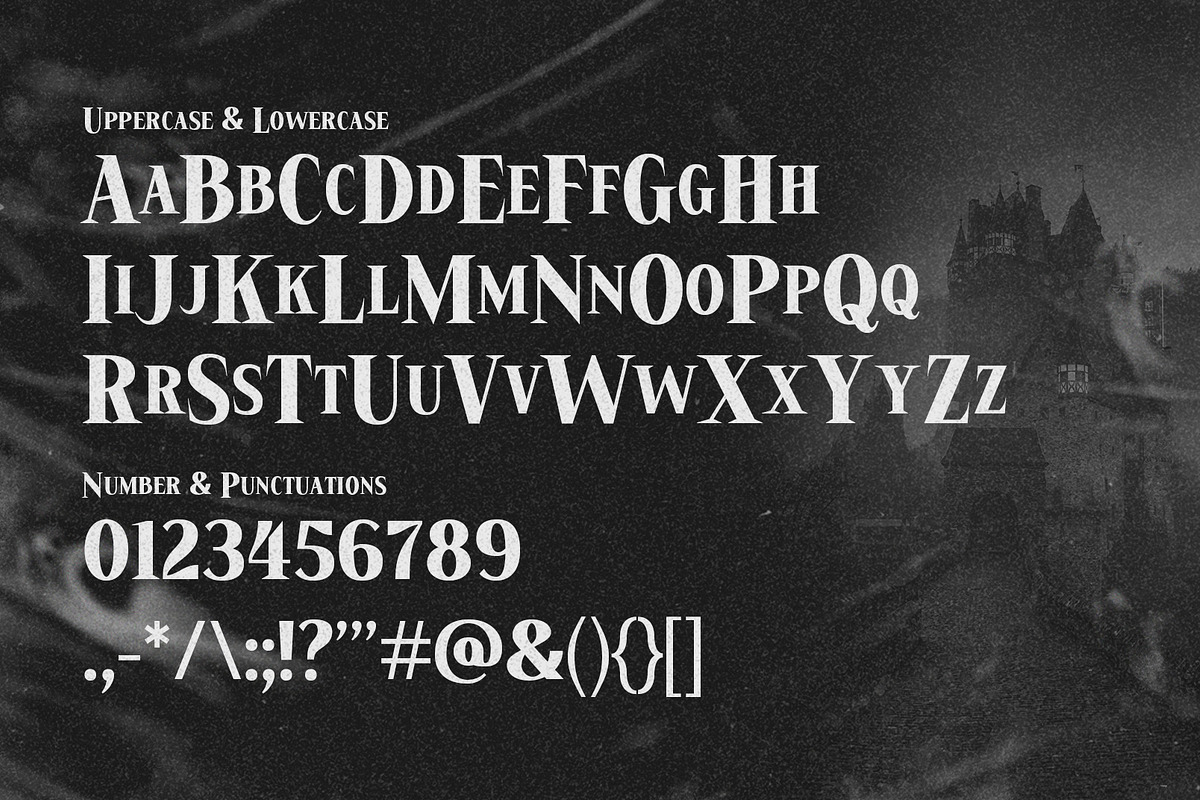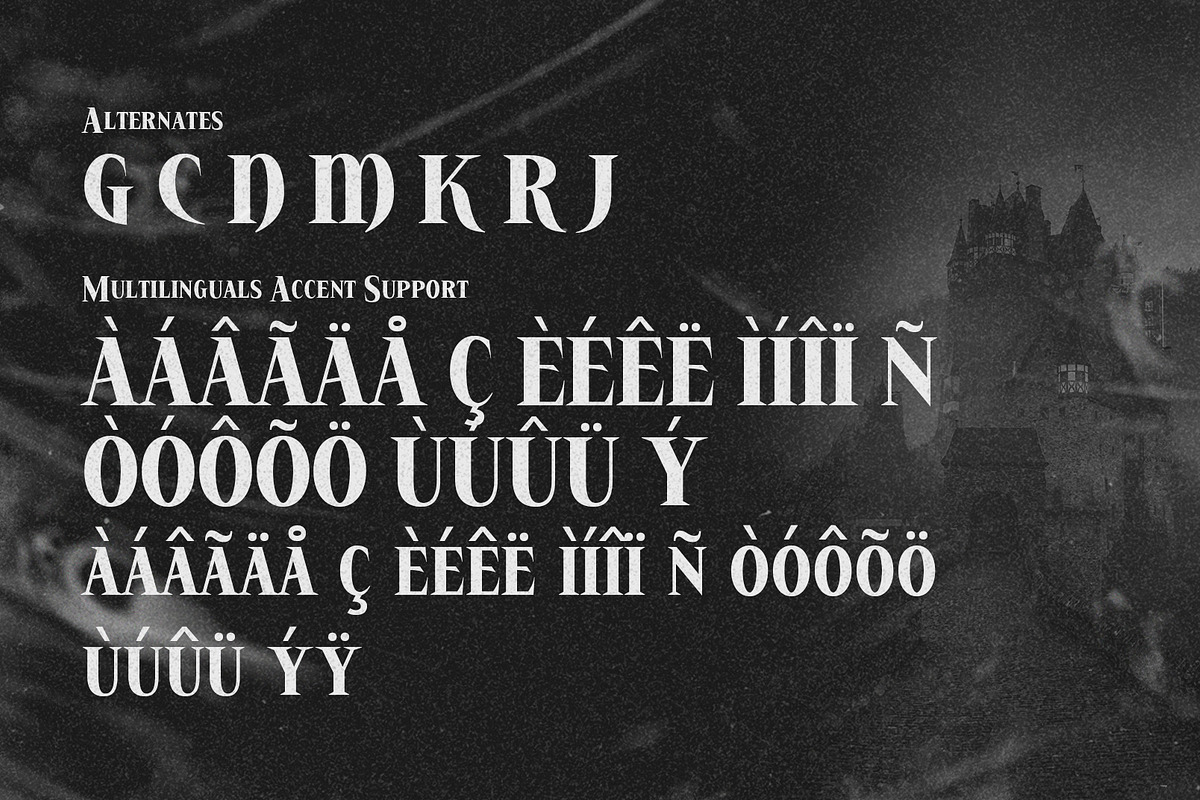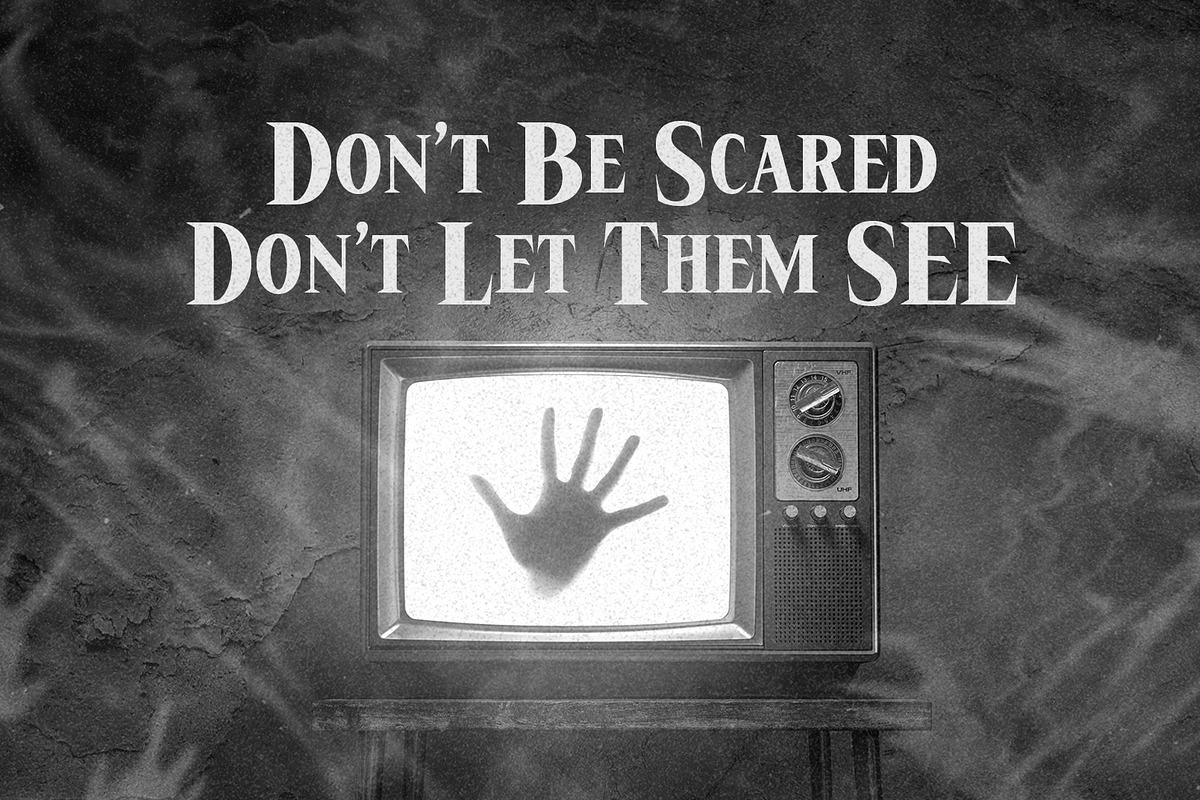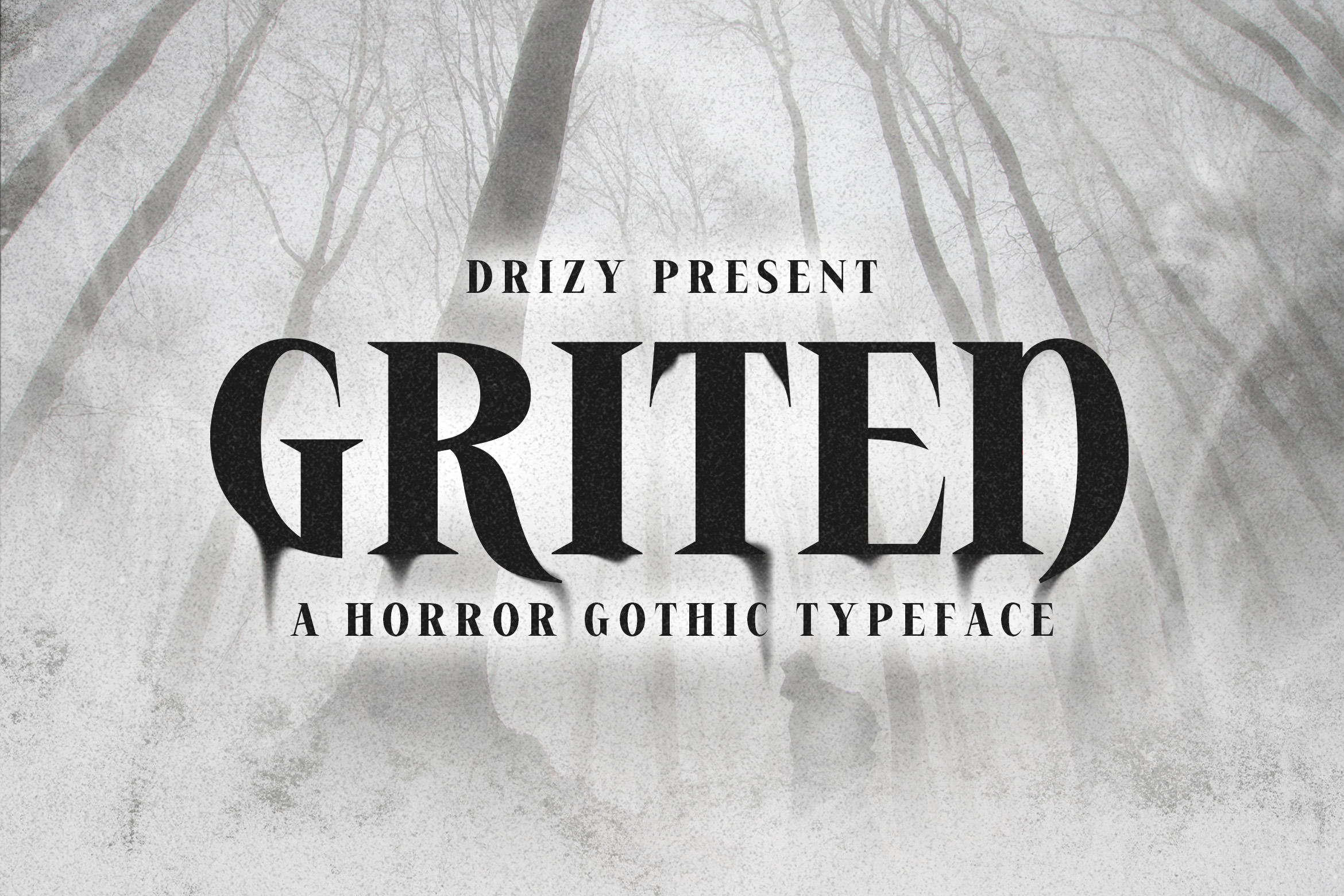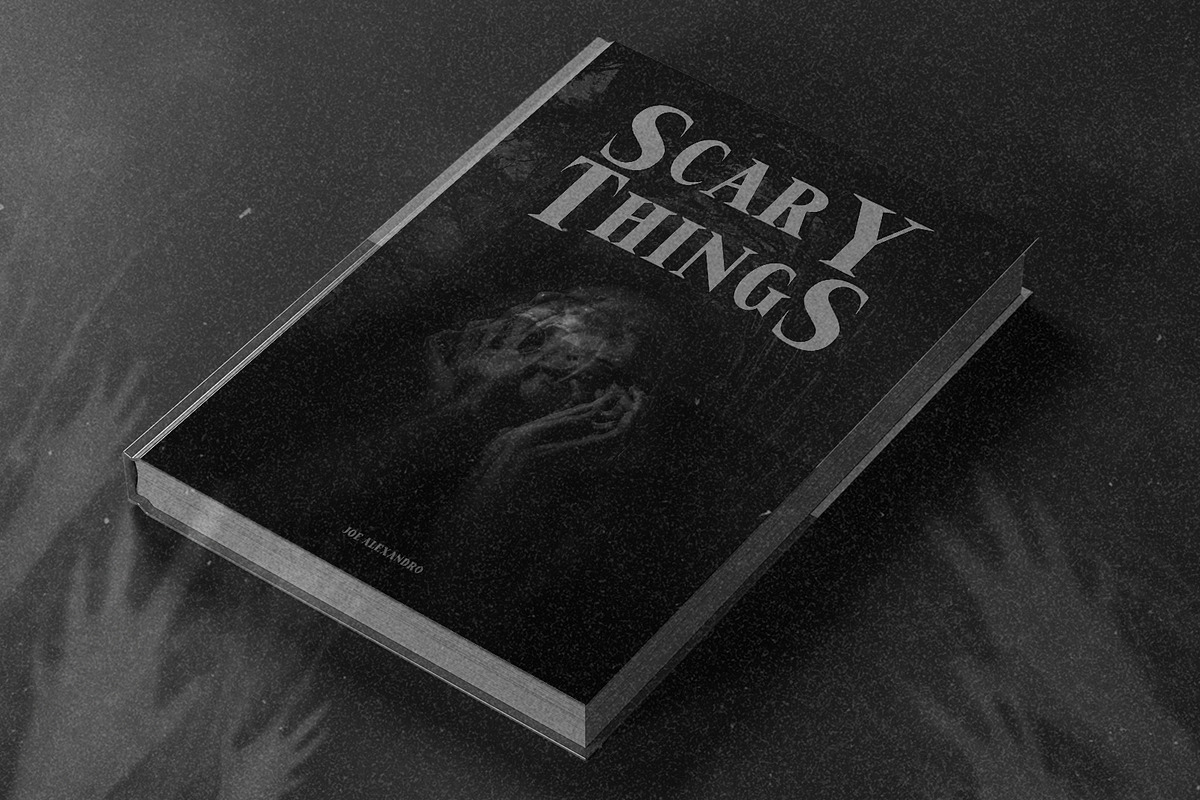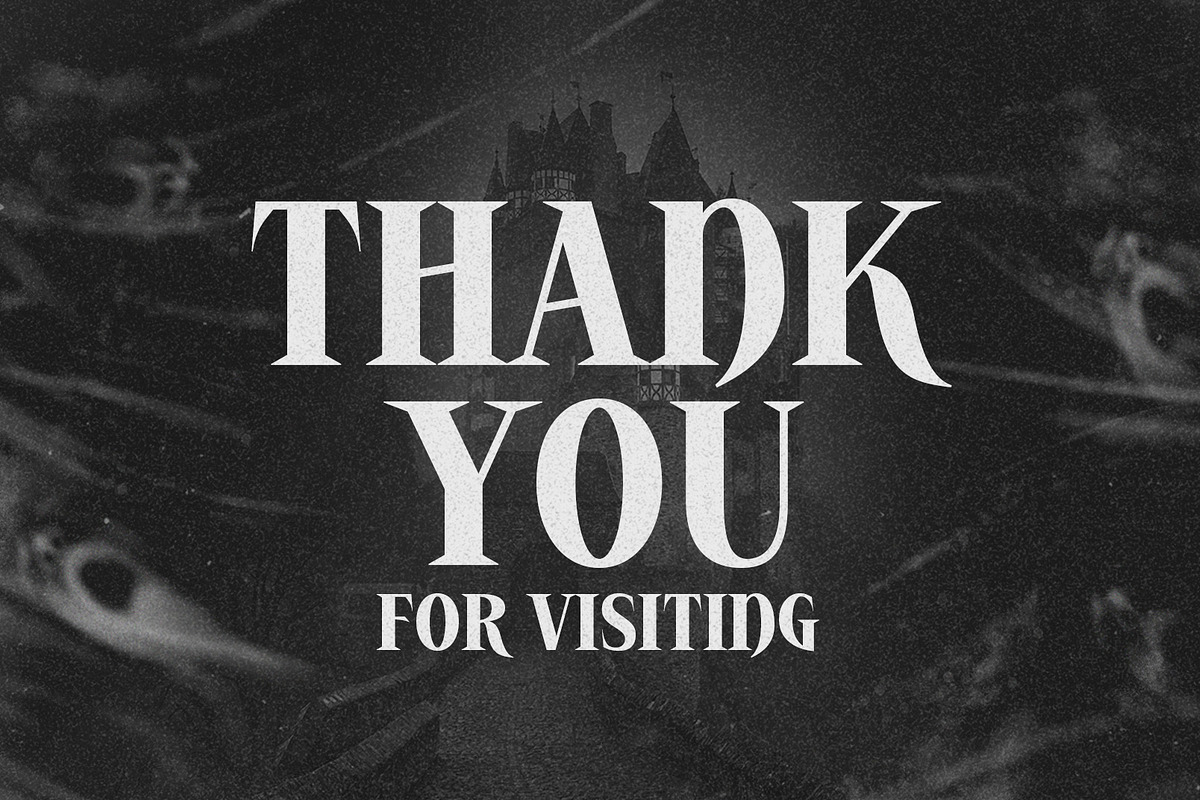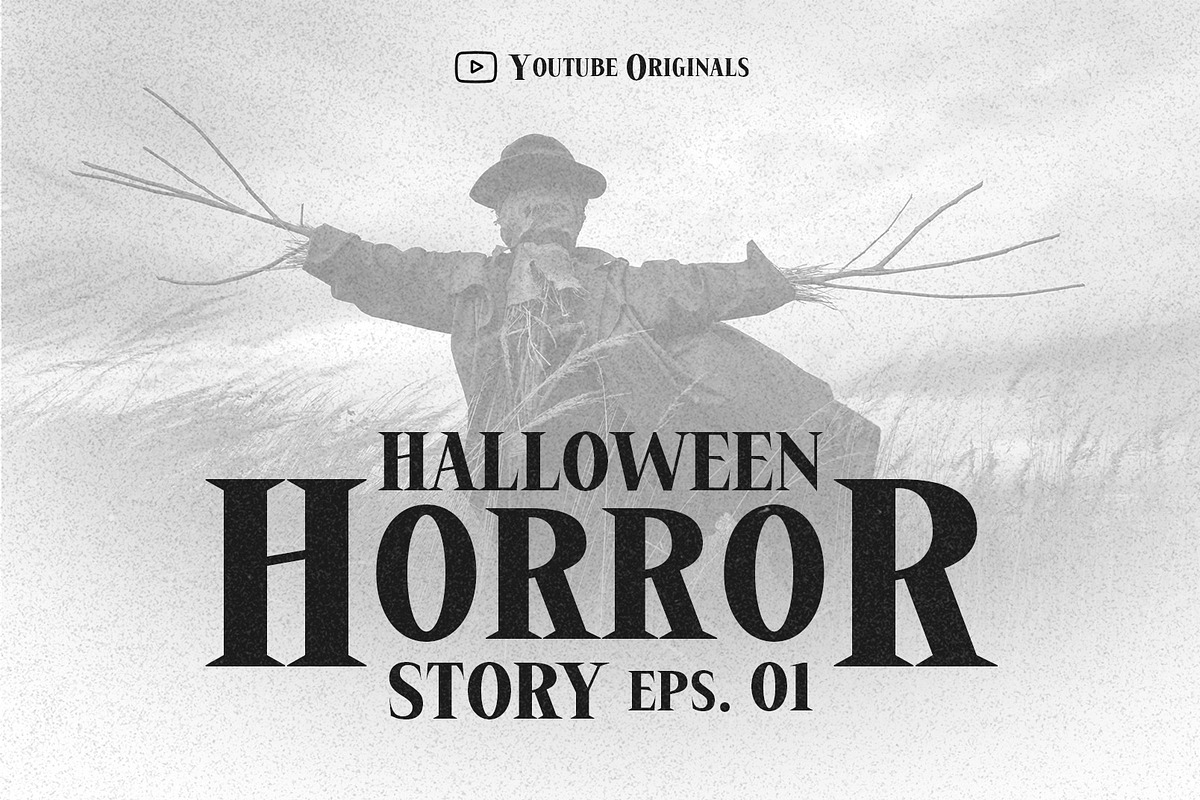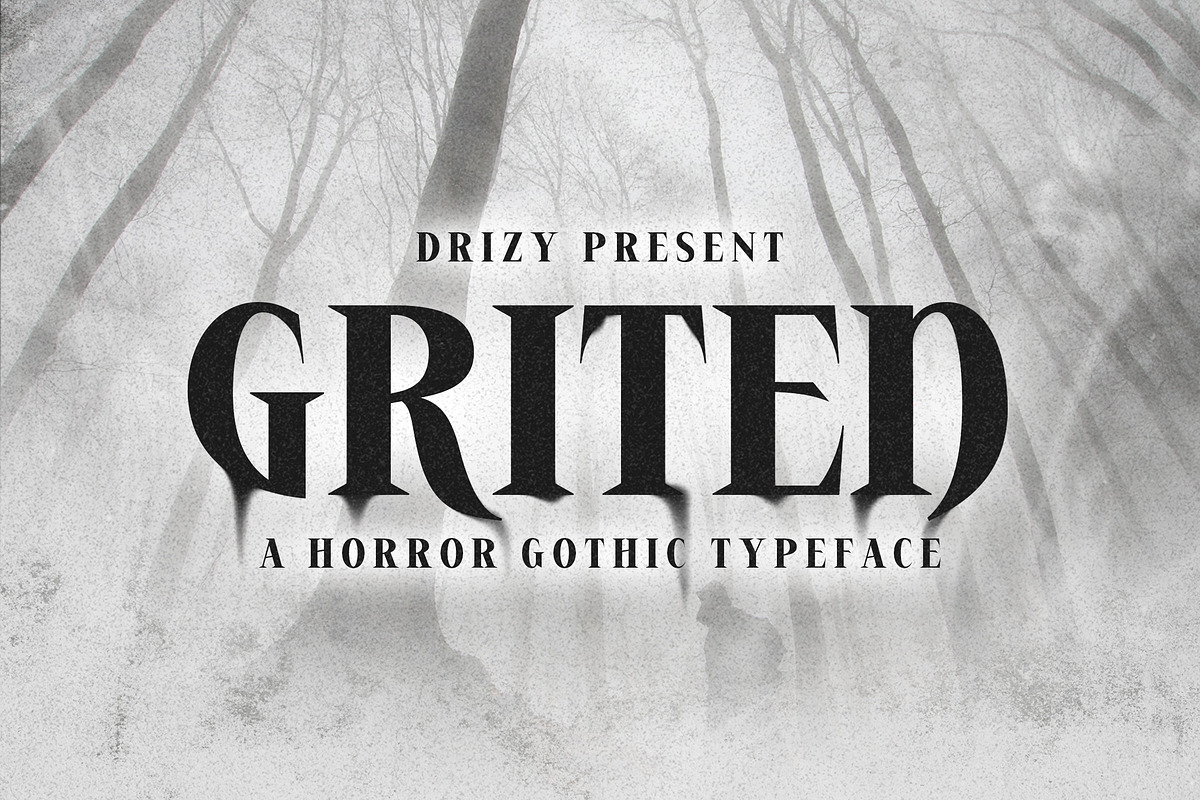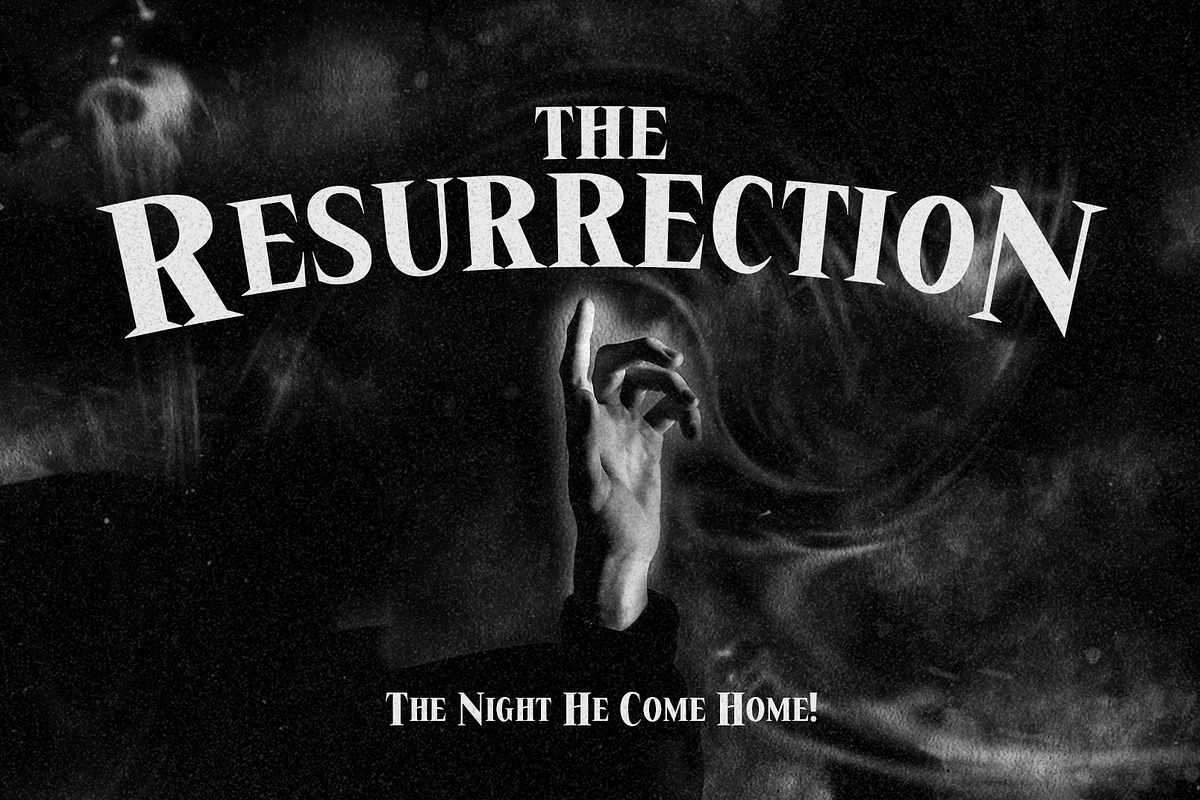
Griten - Horror Gothic Typeface
Griten is a Horror Gothic Typeface from Drizy studio. Offering all the basic styles you will need for a spooky and scary theme, especially Halloween project.
Griten Features:
Uppercase & Lowercase Numeral & Punctuation Multilinguals Alternates